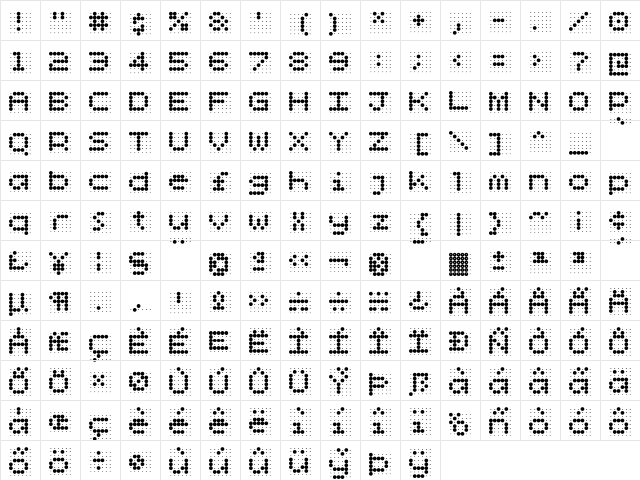
ScannerZ Regular
Design Context for ScannerZ Typeface
ScannerZ takes a measured approach to typography — its balanced proportions and neutral character make it a reliable workhorse for both digital and print work.
Pro Tip: Use ScannerZ in both headline and body roles to test its range before committing to a single application.